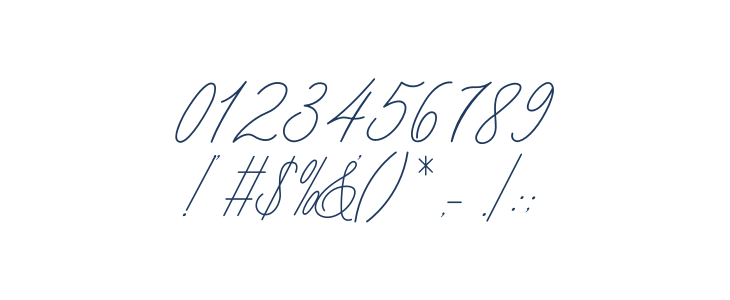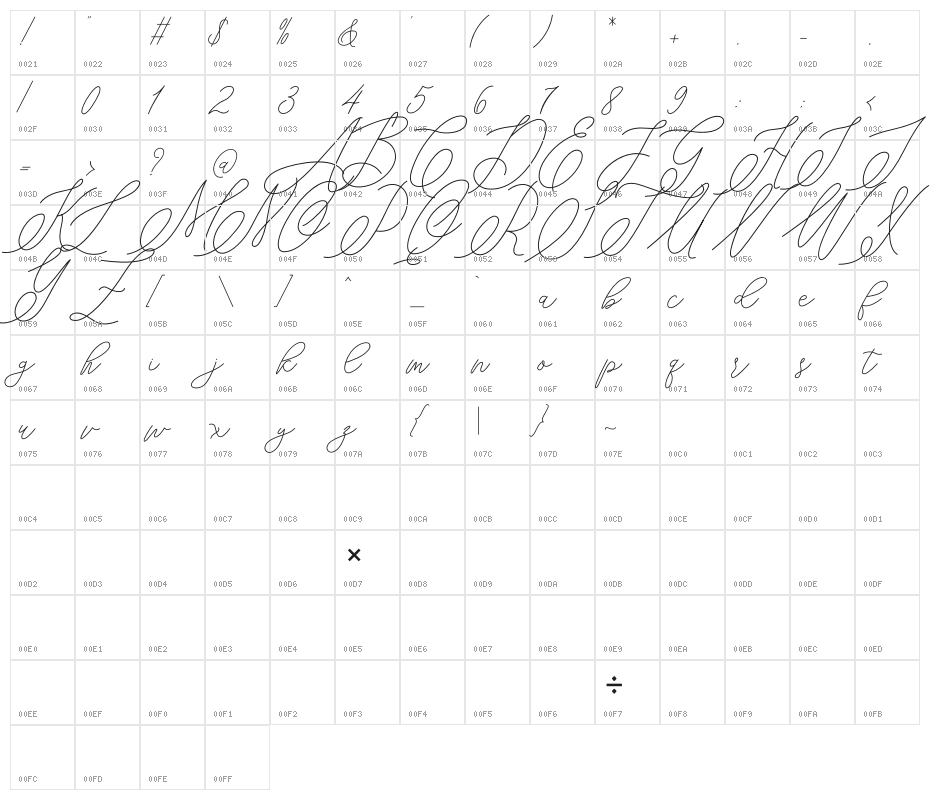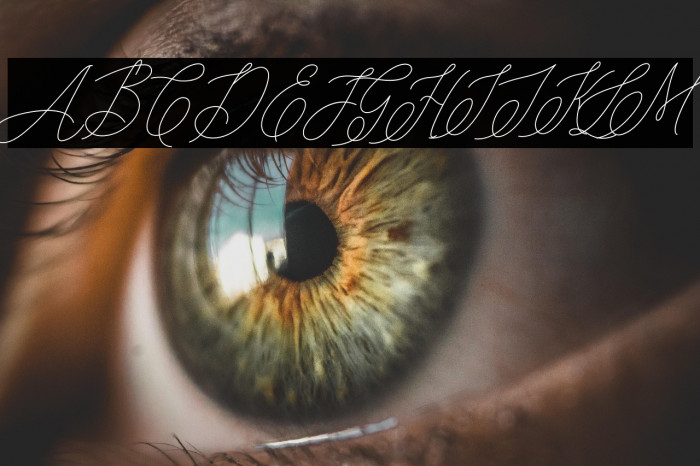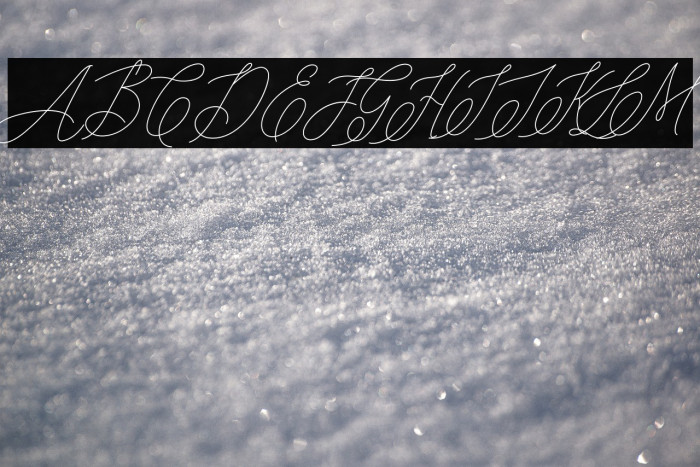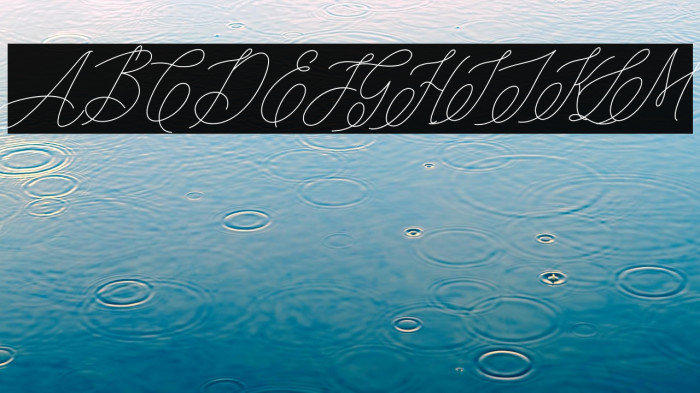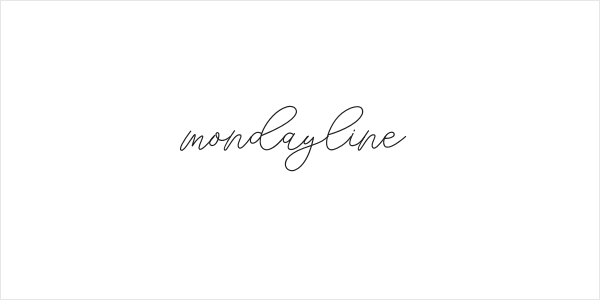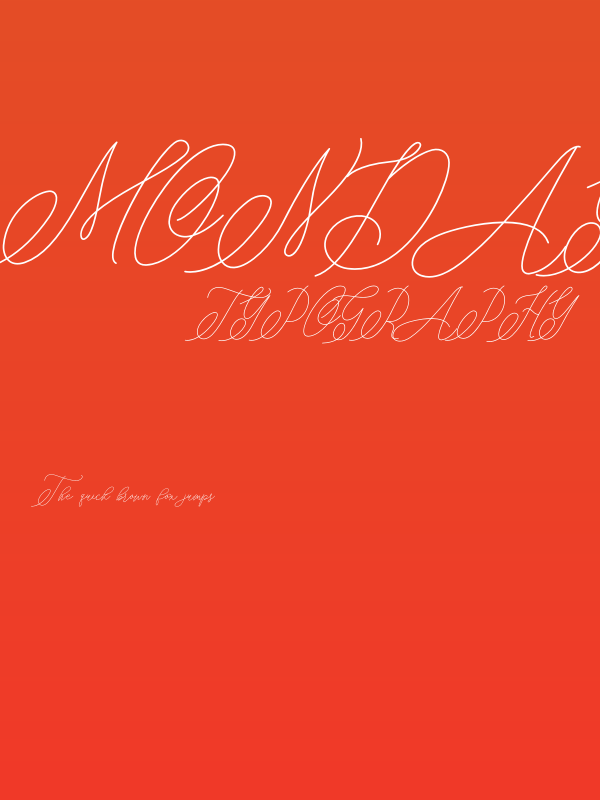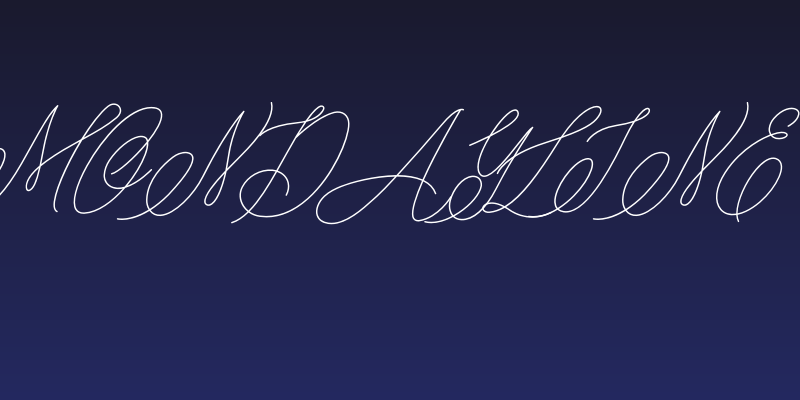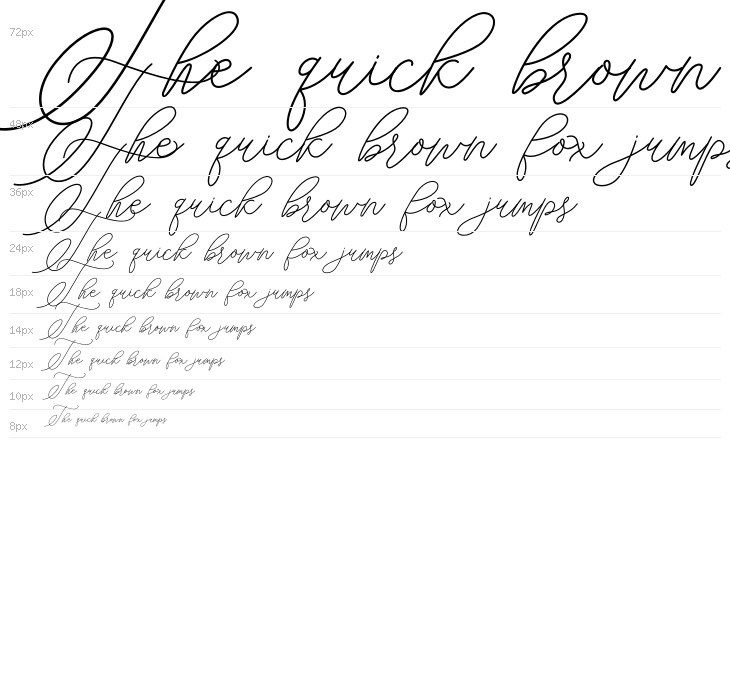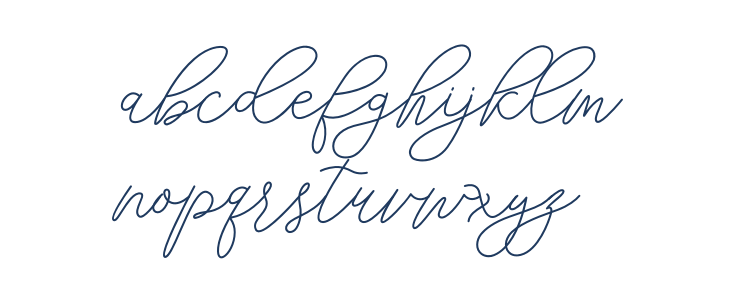
mondayline Font
mondayline Description
This elegant script font features fluid, cursive strokes that create a sense of movement and grace. The uppercase letters are characterized by sweeping loops and flourishes, while the lowercase letters maintain a consistent flow with subtle variations in stroke width. The numerals are designed with a similar fluidity, making them harmonious with the alphabet. Special characters are thoughtfully integrated, maintaining the overall aesthetic. This font exudes sophistication and is ideal for projects that require a touch of elegance and personal flair.
| Use Case | Logos, Invitations, Personal stationery |
| Proposed Projects | Ideal for wedding invitations, greeting cards, elegant branding, and personal stationery. |